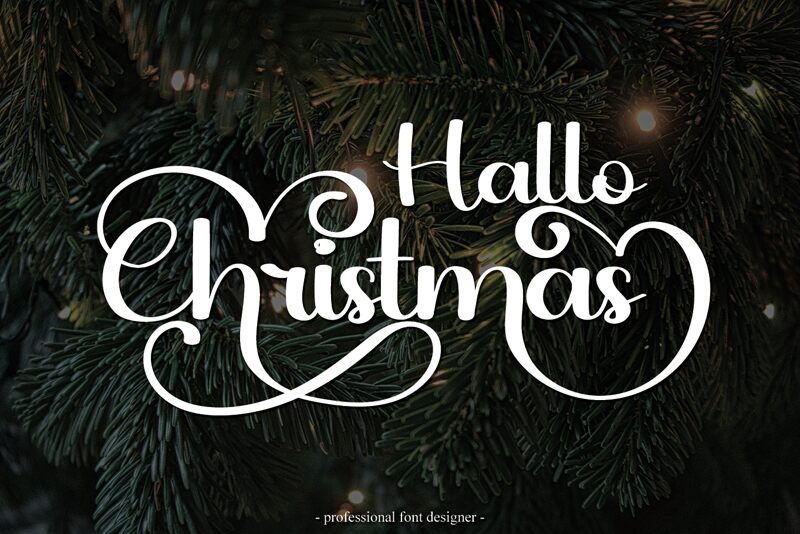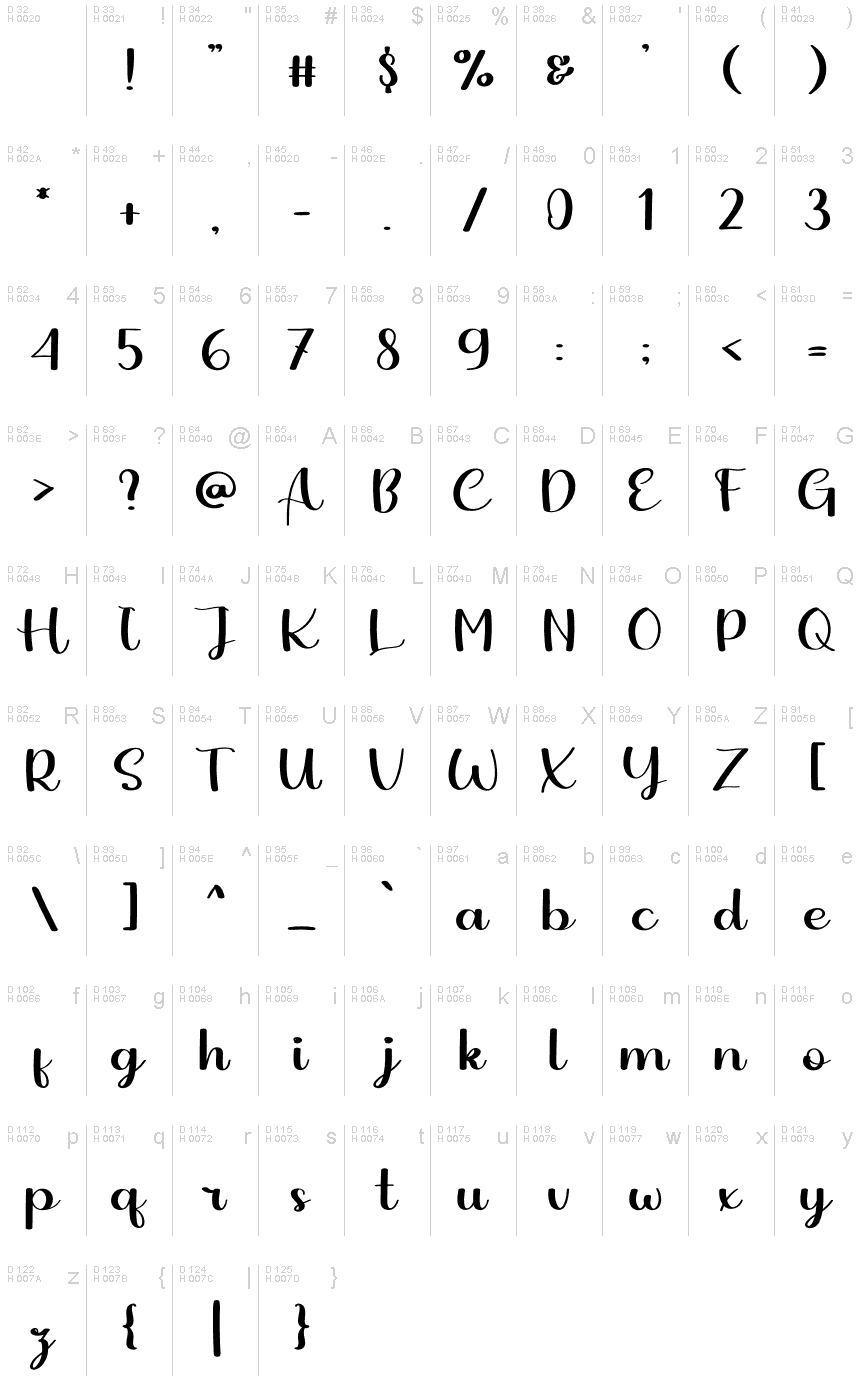
Hallo Christmas
Hallo Christmas is a chic, refined script font that emanates sophistication and elegance. Its stylish alternates and ligatures make this font the perfect match for any project.